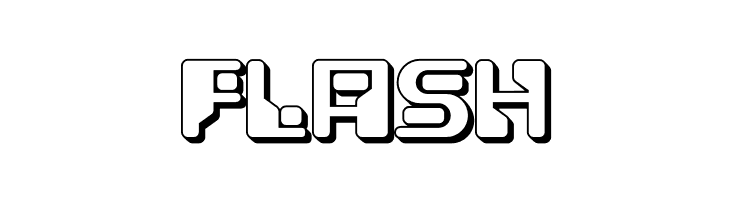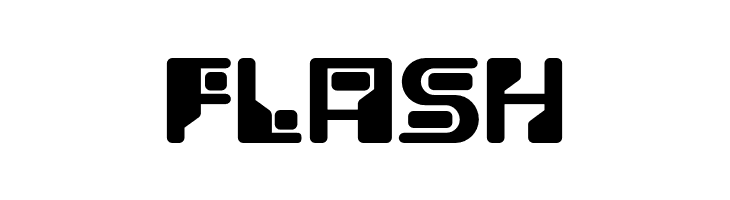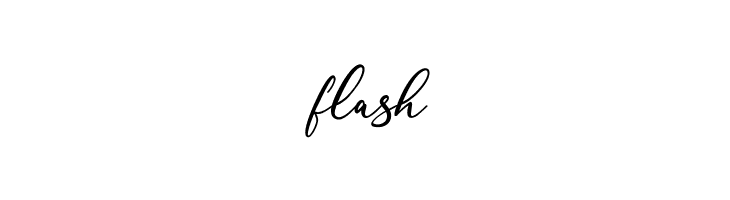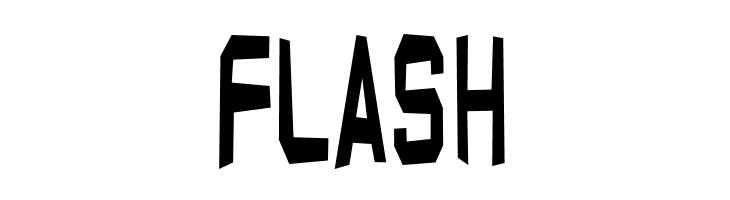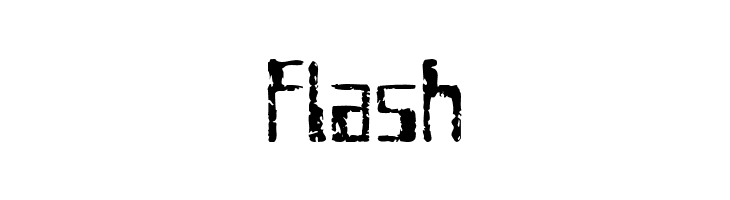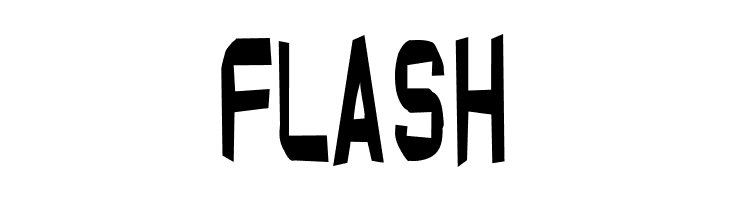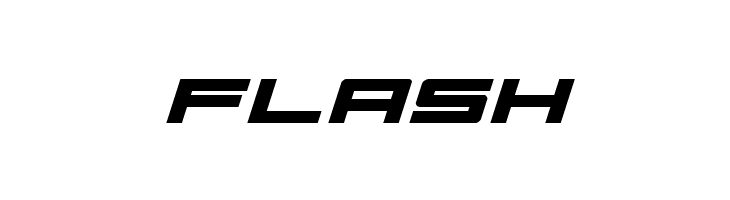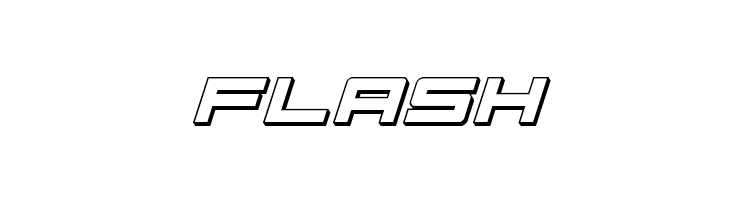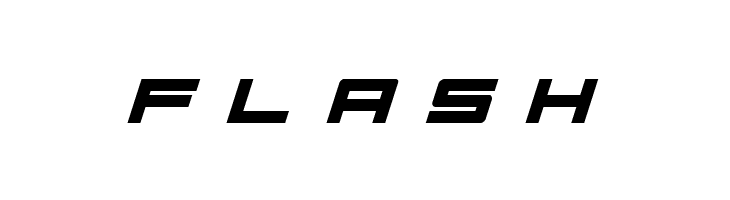
A playful, rugged font with a hand-carved, stone-like appearance.
A bold, geometric font with futuristic cut-out shapes.
A bold, geometric font with a futuristic, outlined style.
A bold, geometric font with angular edges and a modern style.
A bold, playful font with quirky, irregular shapes and a hand-drawn feel.
A bold, playful font with rounded, cartoonish characters.
A playful, bold font with a cartoonish style and shadow effect.
A humorous, hand-drawn cartoon character set with playful and exaggerated styles.
A graceful script font with flowing, connected letters and elegant flourishes.
A bold, geometric stencil font with a modern industrial style.
A bold, futuristic font with a geometric and modern design.
A bold, futuristic font with a 3D effect and geometric style.
A futuristic 3D italic font with bold outlines and a dynamic style.
A futuristic, bold, and condensed font with geometric and angular design.
A futuristic, condensed italic font with sharp angles and bold strokes.
A bold, futuristic font with geometric shapes and sharp angles.
A futuristic, expanded italic font with angular, geometric shapes.
A futuristic, bold font with a halftone effect and geometric design.
A futuristic, italicized font with a halftone effect and bold, angular characters.
A bold, italic, futuristic font with angular, geometric characters.
A futuristic, angular font with a bold and geometric design.
A futuristic, italic font with sharp angles and high contrast, perfect for tech-inspired designs.
A futuristic, angular font with bold, slanted letterforms.
A futuristic, semi-italic font with bold, angular characters and a modern aesthetic.
A bold, italic, futuristic font with angular, geometric characters.
A futuristic, geometric font with bold, angular letterforms.
A futuristic, italicized font with bold, angular letterforms.
A distressed, rugged font with a bold, eroded appearance.
A futuristic, geometric font with sharp angles and a bold presence.
A futuristic, geometric font with bold, pixelated outlines.